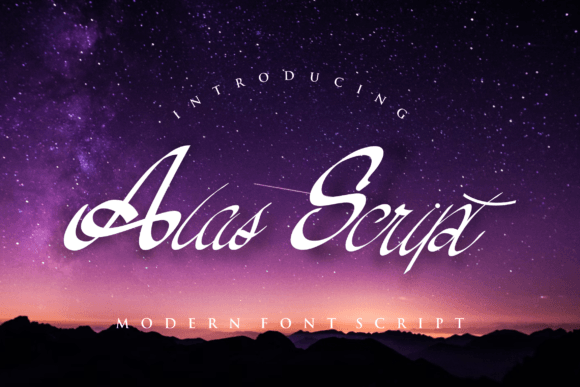
The Perfect Touch: Unlocking the Beauty of Alas Script Font
There’s nothing quite like the thrill of staring at a blank page, waiting for inspiration to strike. It’s the moment when creativity knows no bounds, and the possibilities seem endless. For designers, this moment is what drives us to push the boundaries of our craft and create something truly remarkable. And that’s exactly where Alas Script Font comes in – a beautiful and light handwritten font that adds a touch of elegance to any project.
Whether you’re working on a wedding invitation, a children’s book, or a marketing campaign, Alas Script Font is the perfect addition to elevate your design. Its unique feel and stunning impact make it a valuable asset for any designer looking to add a personal touch to their work. With Alas Script Font, you can create beautiful, one-of-a-kind designs that truly stand out from the crowd.
Alas Script Font Key Features
- Unique Characteristics: Alas Script Font features a distinctive, hand-written style with varying line widths and subtle irregularities, giving it a personal and emotive feel.
Alas Script Font Review
When I first laid eyes on the Alas Script Font, I was immediately drawn to its elegant and whimsical feel ✨. The flowing connections between the letters and the delicate flourishes give it a romantic and sophisticated vibe that’s perfect for wedding invitations, stationery, or even fashion brands. The font is also highly customizable, making it easy to adjust the size, color, and spacing to fit your design needs.
One of the things that really stands out about Alas Script Font is its high level of legibility ✨. Even at smaller font sizes, the letters remain clear and easy to read, making it a great choice for body text or headlines. Additionally, the font’s subtle texture and imperfections give it a unique, hand-written feel that’s hard to replicate with other fonts.
- ⚠️ The Alas Script Font can be a bit too ornate for some designs, making it difficult to read at very small font sizes.
- ⚠️ The font’s customizability can also be a double-edged sword, as it can be easy to overdo it and make the design look cluttered.
Overall, I’m thoroughly impressed with the Alas Script Font ✨. While it may not be the best choice for every design project, its unique blend of elegance and whimsy makes it a great addition to any font collection. Just be sure to use it judiciously and balance it with more straightforward fonts to avoid overwhelming the reader.
Use Alas Script font for creative, artistic, or romantic projects, such as:
– Wedding invitations
– Handwritten-style quotes
– Personalized gift tags
Remember to pair Alas Script with a clean, simple font for maximum impact.